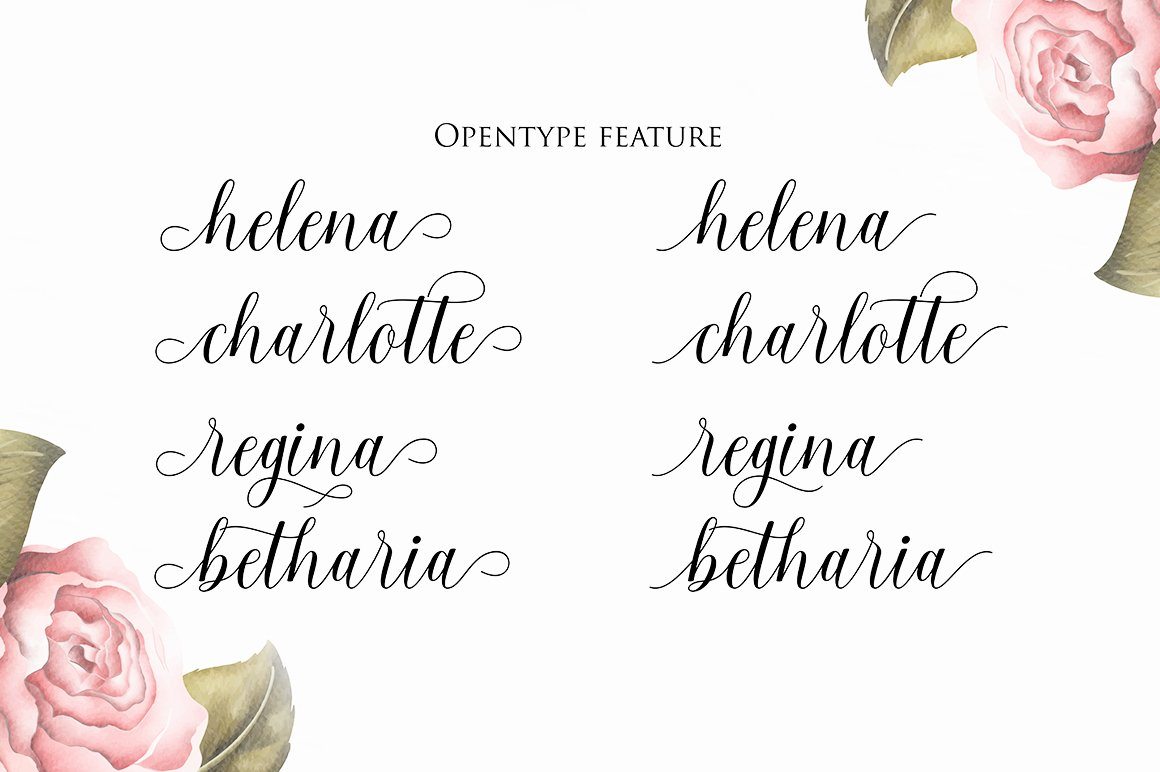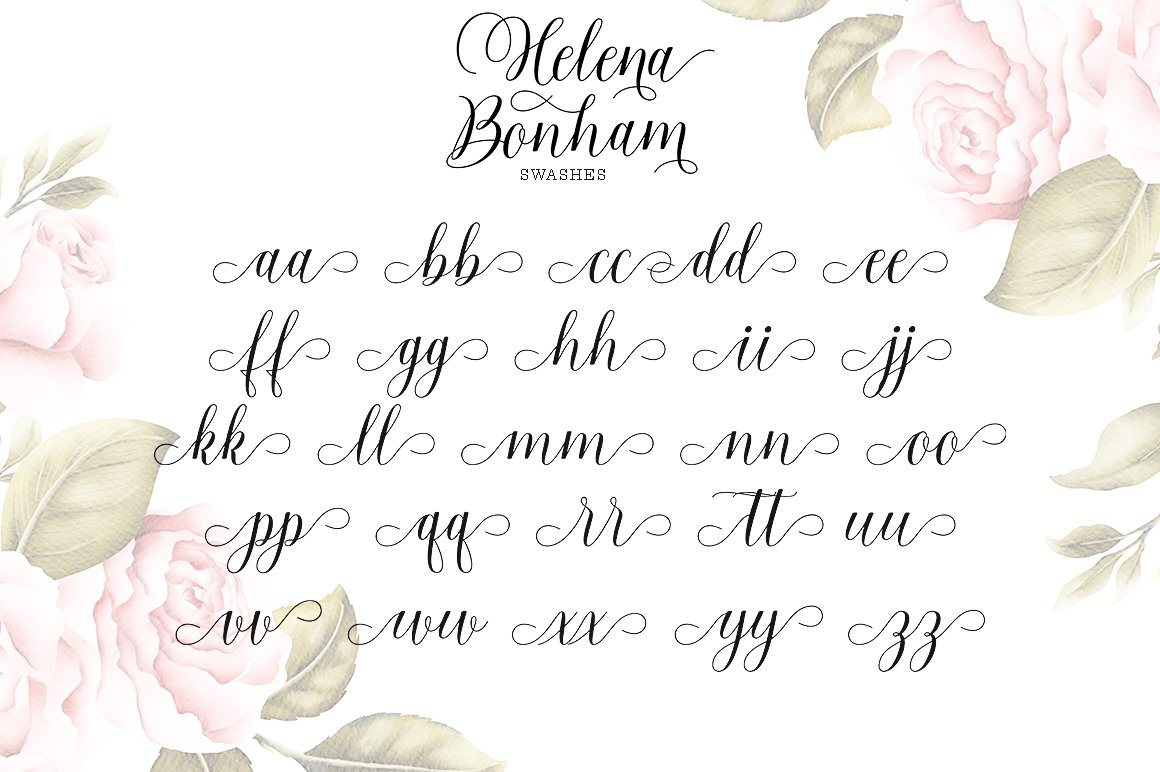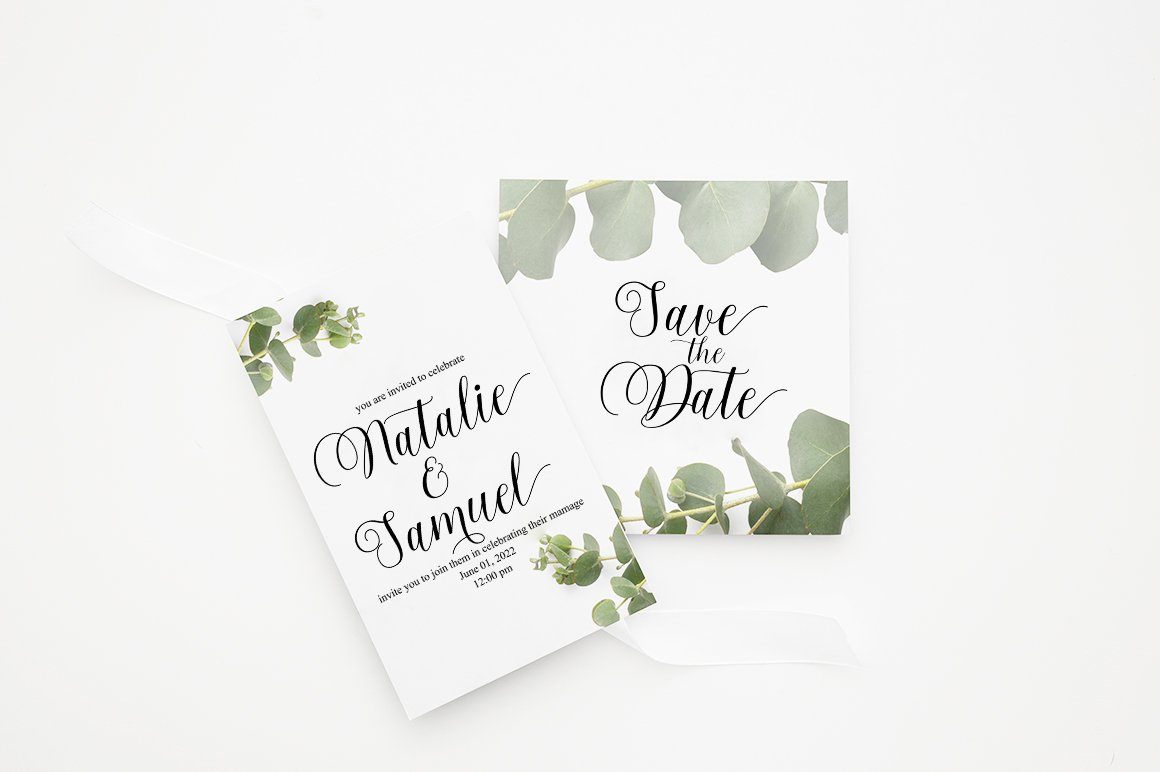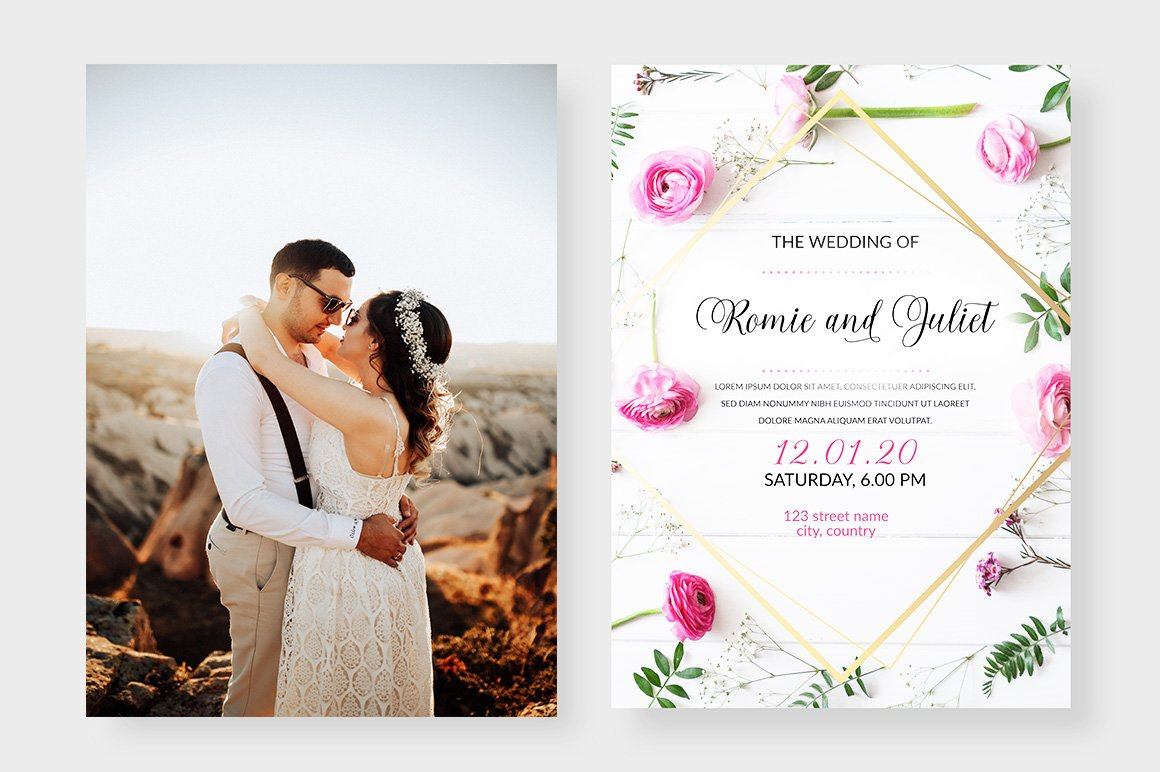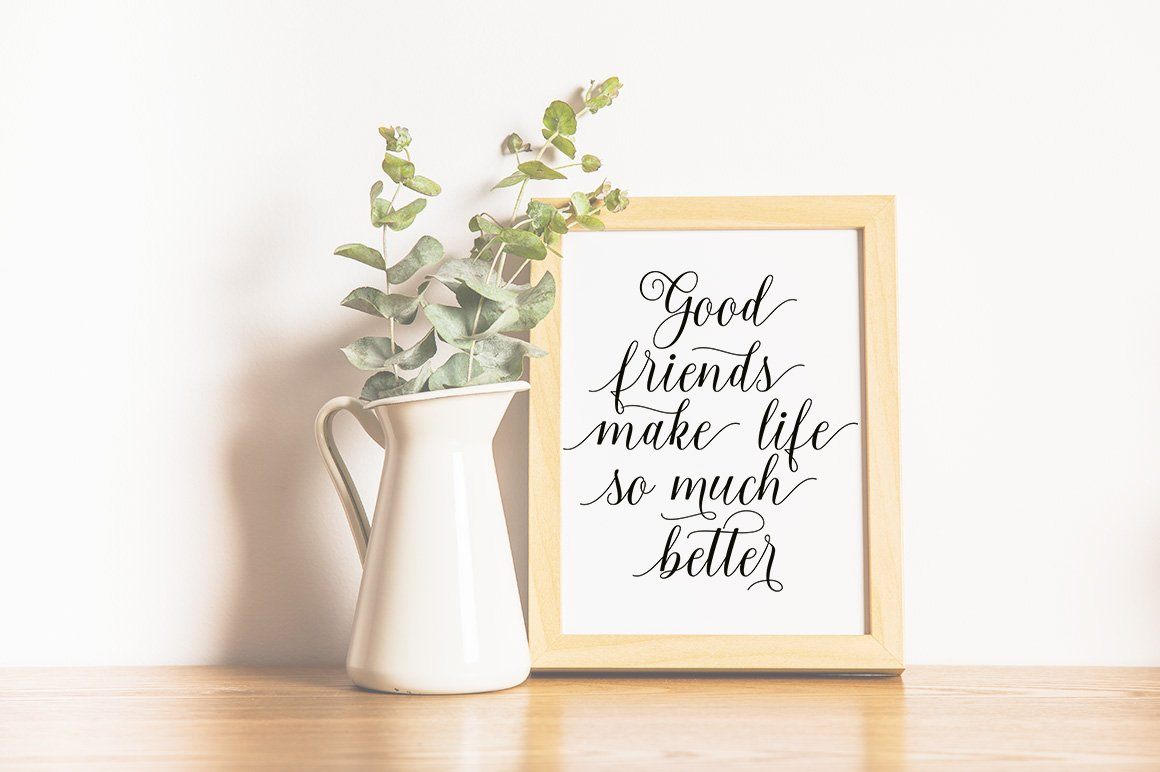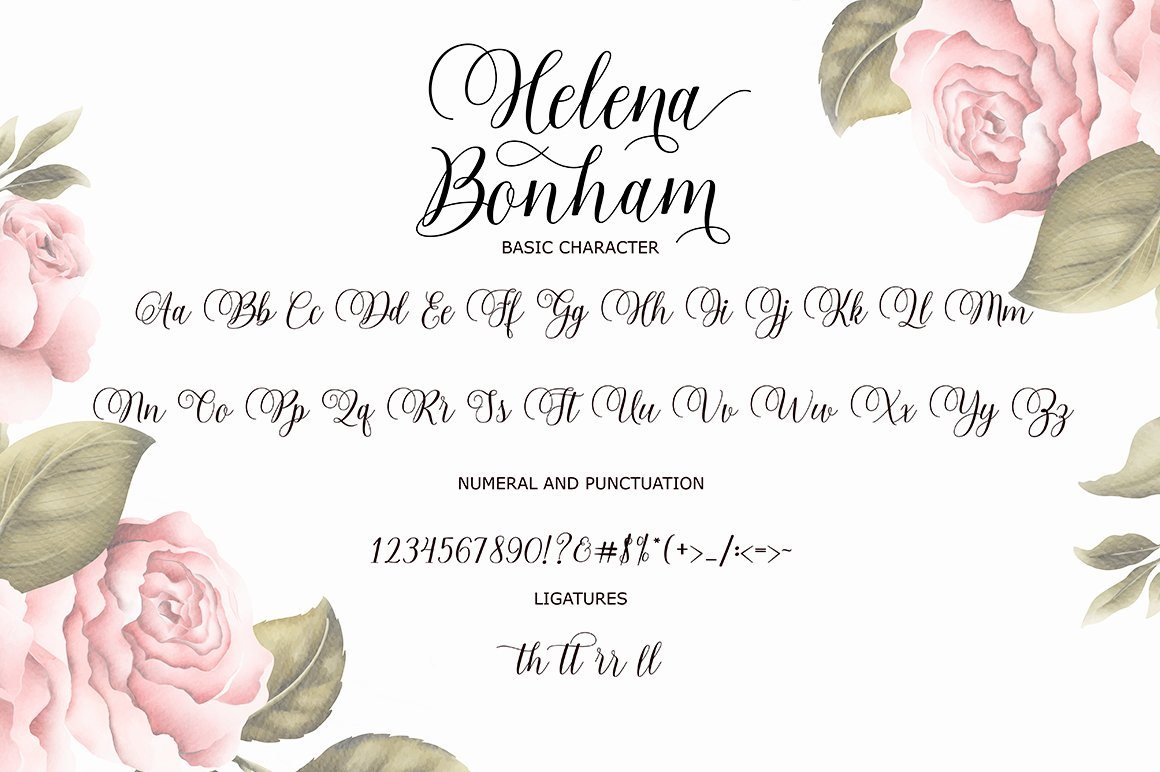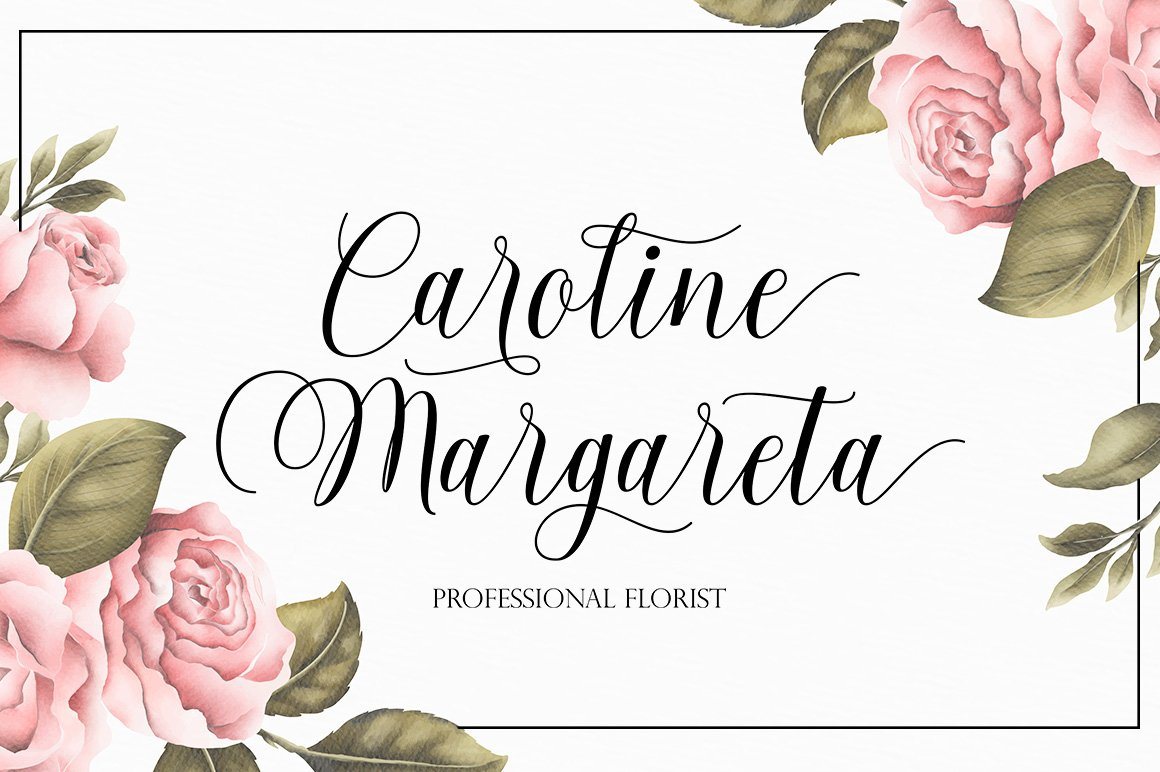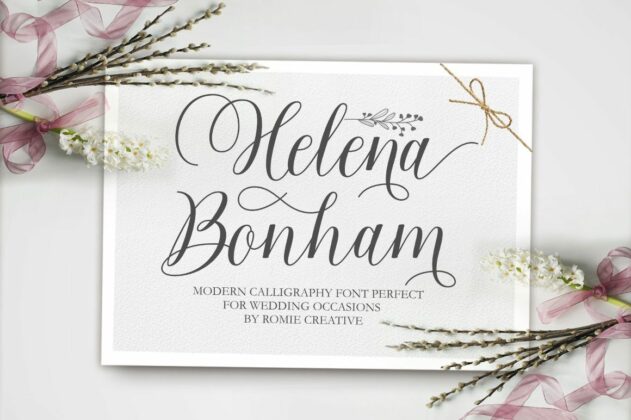
Helena Bonham
Helena Bonham is a modern and elegant calligraphic script font that comes with beautiful character changes, a kind of classic decorative copper script with a modern touch, designed with high detail to bring stylish elegance. Bettrisia Script Interesting scripts such as smooth, clean, feminine, sensual, glamorous, simple and very easy to read, because there are many fancy and simple letter connections. I also offer several alternative styles suitable for many letters. This font style is perfect for various designs of your work, such as invitations, labels, restaurant menus, logos, fashion, makeup, stationery, novels, magazines, books, greeting / wedding cards, packaging, labels and others. Helena Bonham 385 characters and alternatives , including various language options. With OpenType features with alternative styles and elegant ties. The OpenType feature does not use manuals, but you can access it manually and for the best results needed for your creativity in this variation of glyphs. The Open Type feature can be accessed using Open Type savvy programs such as Adobe Illustrator, Adobe In Design, Adobe Photoshop Version of Corel Draw X, and Microsoft Word. And this font has provided unicode PUA (special code font). All alternative characters can be easily accessed by craftsmen or designers.